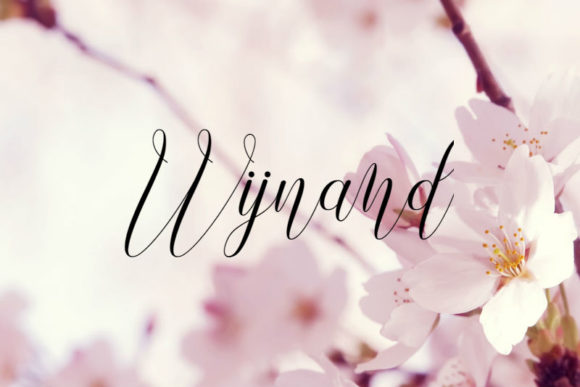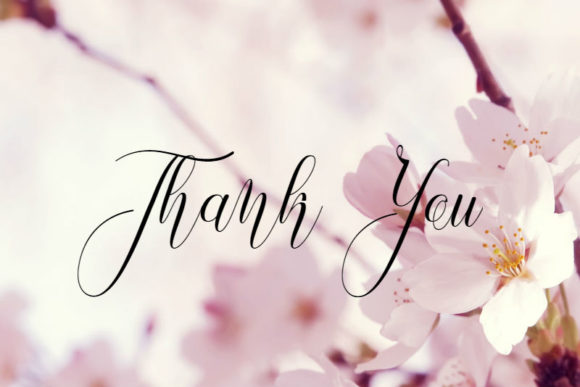
Wijnand Font
About Wijnand Font
Wijnand is a unique and delicate handwritten font with a classy feel. Use it to turn any design idea into a true standout!